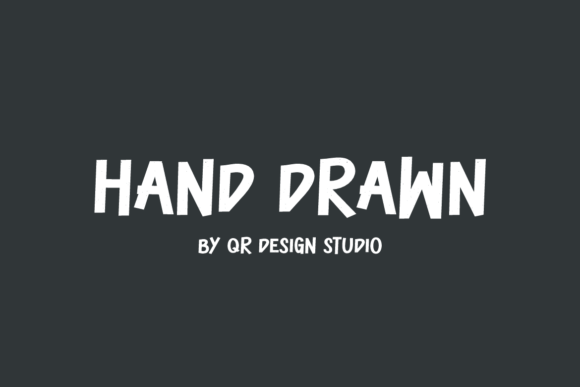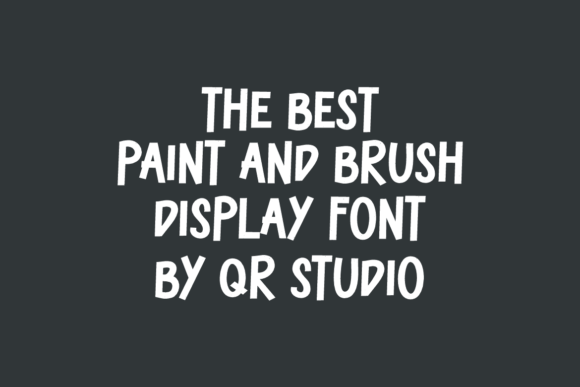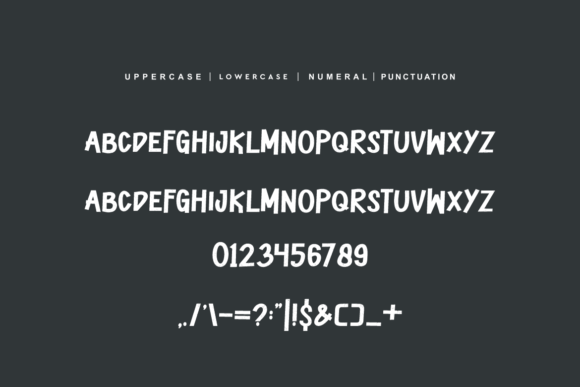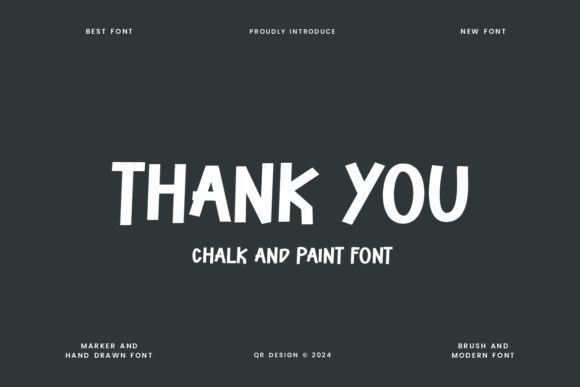
Introduction to Motheng Font
Have you ever been working on a creative project and felt like something was missing – a spark that brings it all together? For many designers, finding the perfect font can be the key to unlocking that magic. And for those who love handwritten fonts, the search is often a rewarding one. That’s where Motheng Font comes in – a sweet and friendly handwritten font that’s sure to capture your heart.
As a valuable design resource, Motheng Font offers a unique and natural style that’s incredibly versatile. Whether you’re working on a personal project or a professional design, its high quality and free download make it an attractive option. Plus, with a transparent background, you can easily integrate it into any design without worrying about distractions. With Motheng Font, the only limit is your imagination – and that’s what makes it so valuable for designers.
Key Features of Motheng Font
- High-quality design resource ideal for creative projects, including graphic design, digital art, and web design.
- Comes with a transparent background, allowing for seamless integration into various design projects.
- Features a unique, eye-catching design that sets it apart from other fonts, making it perfect for designers looking to add a touch of creativity to their projects.
- Designed with high resolution, making it suitable for use in various mediums, including print and digital applications.
Honest Review: Motheng Font
I recently had the chance to work with the Motheng Font, and I must say it’s been a game-changer for my creative project. This free download has genuinely elevated my designs with its unique aesthetic and versatility.
- ✨ What works well: The Motheng Font offers a high quality, transparent background that blends seamlessly with any design. It’s perfect for creating visually appealing headers and titles.
- ✨ Another great aspect is its extensive character set, which includes a wide range of symbols and accents. This makes it an ideal design resource for international projects or those requiring a specific set of characters.
- ✨ The font is also incredibly easy to use, with a clean and intuitive interface that makes it simple to customize and manipulate the text.
While the Motheng Font is an excellent addition to any design arsenal, there are a few limitations to keep in mind.
- ⚠️ Limited support for older systems: I encountered some compatibility issues with older operating systems, which may be a concern for designers working with legacy software.
- ⚠️ Limited customization options: While the font is highly customizable, some designers may find the available options to be somewhat limited compared to other high-end fonts.
Overall, I’m thoroughly impressed with the Motheng Font and would highly recommend it to any designer looking for a high-quality, versatile font to add to their design resource library.
Tips for Getting the Most Out of Motheng Font
Use Motheng Font with a transparent background to create a seamless design. Experiment with different font sizes and styles to achieve the desired effect.
Motheng Font is ideal for creative projects, including:
- Branding